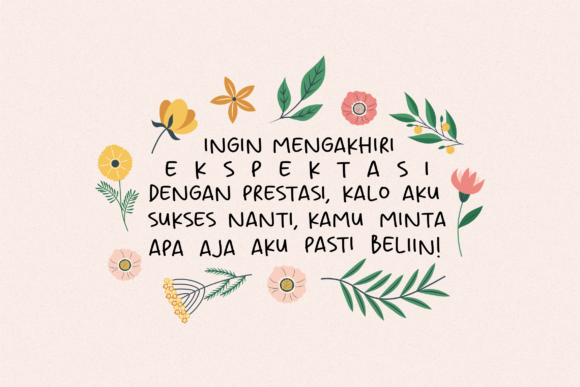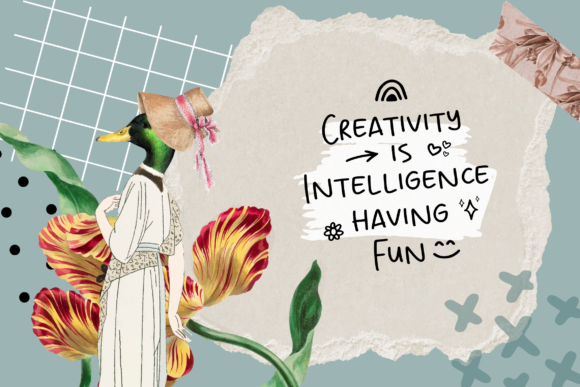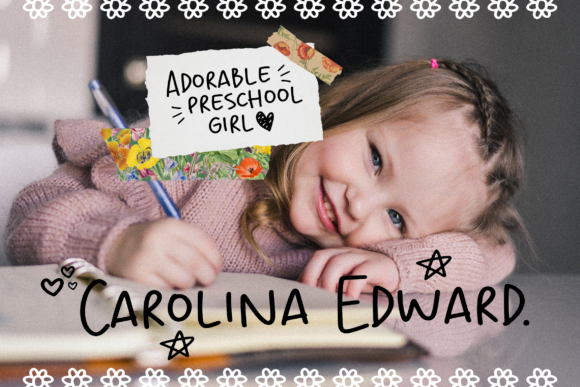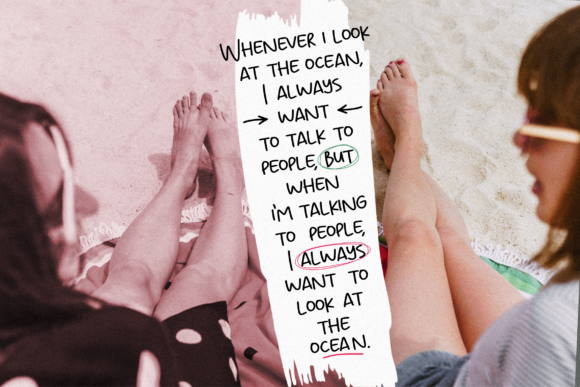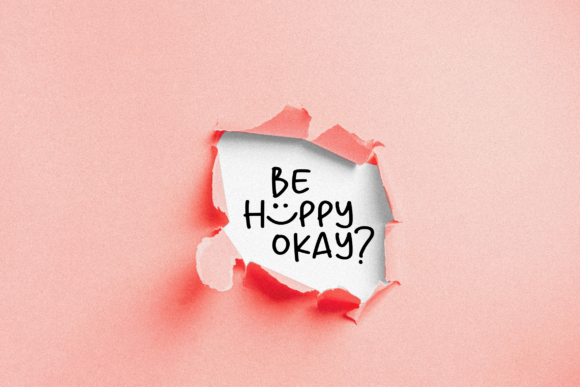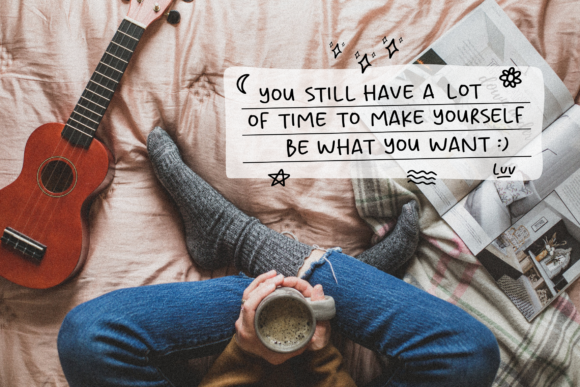
Introducing Chicola Smoothy Font: The Perfect Addition to Your Design Arsenal
Are you a designer, crafter, or educator looking for a font that can add a personal touch to your work? Look no further than Chicola Smoothy, a charming and straightforward lettered handwritten font. This delightful font is perfect for creating chalkboard quotes, teaching materials, and other designs that require a warm and authentic feel.
The Characteristics of Chicola Smoothy Font
Chicola Smoothy is a beautifully crafted font that boasts a range of characteristics that make it ideal for various design projects. Some of its key features include:
- Cute and Simple Design: Chicola Smoothy has a sweet and uncomplicated design that makes it perfect for creating visually appealing designs.
- Handwritten Style: The font has a lovely handwritten style that gives it a personal and realistic feel.
- Lettered Font: Chicola Smoothy is a lettered font, which means it’s perfect for creating titles, headings, and quotes.
- Chalkboard-Inspired: The font has a chalkboard-inspired look that makes it ideal for creating designs that resemble handwritten chalkboard quotes.
Uses of Chicola Smoothy Font
Chicola Smoothy is a versatile font that can be used for a wide range of design projects. Some of the most popular uses of this font include:
- Chalkboard Quotes: Create stunning chalkboard quotes that are perfect for social media, blogs, or marketing materials.
- Teaching Materials: Use Chicola Smoothy to create engaging and interactive teaching materials, such as worksheets, posters, and presentations.
- Crafting and Scrapbooking: Add a personal touch to your crafting and scrapbooking projects with Chicola Smoothy’s charming handwritten style.
- Branding and Packaging: Use Chicola Smoothy to create custom branding and packaging designs that stand out from the crowd.
Why Choose Chicola Smoothy Font?
So, why should you choose Chicola Smoothy font for your design projects? Here are just a few reasons:
- Unique and Authentic Look: Chicola Smoothy has a unique and authentic look that will add a personal touch to your designs.
- Easily Readable: The font is easily readable, making it perfect for creating designs that require a clear and concise message.
- Versatile: Chicola Smoothy is a versatile font that can be used for a wide range of design projects.
- High-Quality: The font is of high quality, ensuring that your designs look professional and polished.
Tips for Using Chicola Smoothy Font
Here are a few tips for using Chicola Smoothy font in your design projects:
- Pair with Other Fonts: Pair Chicola Smoothy with other fonts to create a unique and visually appealing design.
- Use for Headings and Titles: Use Chicola Smoothy for headings and titles to add a personal touch to your designs.
- Keep it Simple: Keep your design simple and clean to ensure that Chicola Smoothy is the focal point.
In conclusion, Chicola Smoothy font is a charming and versatile font that is perfect for designers, crafters, and educators. Its authentic look and handwritten style make it ideal for creating chalkboard quotes, teaching materials, and other designs that require a personal touch. With its ease of use and high-quality design, Chicola Smoothy is a great addition to any design arsenal.